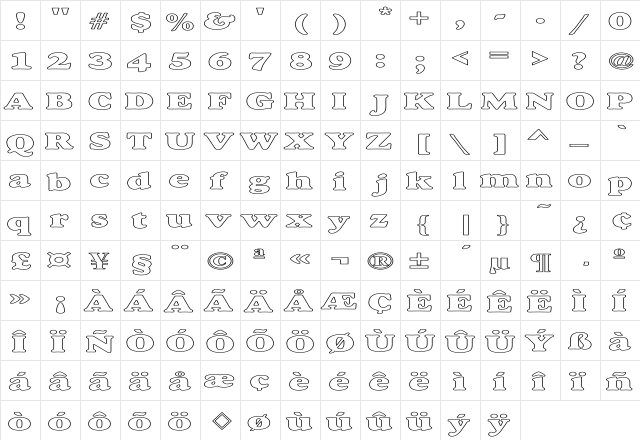
Alfredo Heavy Hollow Expanded Regular
Design Context for Alfredo Heavy Hollow Expanded Typeface
Alfredo Heavy Hollow Expanded is a composed and adaptable typeface that performs quietly and consistently across a wide range of design contexts.
Pro Tip: Use Alfredo Heavy Hollow Expanded in both headline and body roles to test its range before committing to a single application.